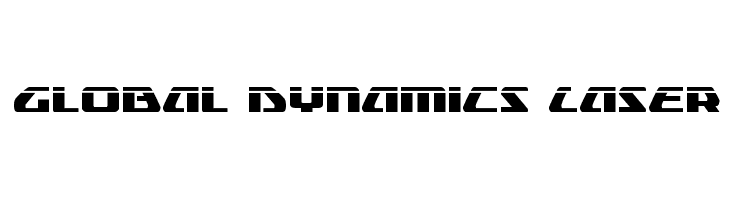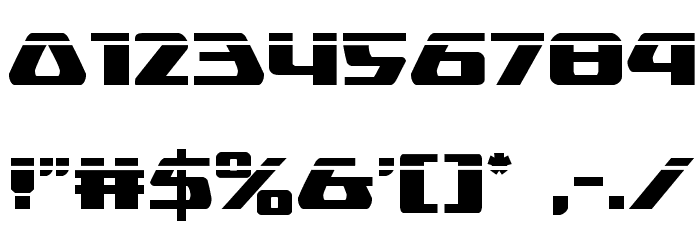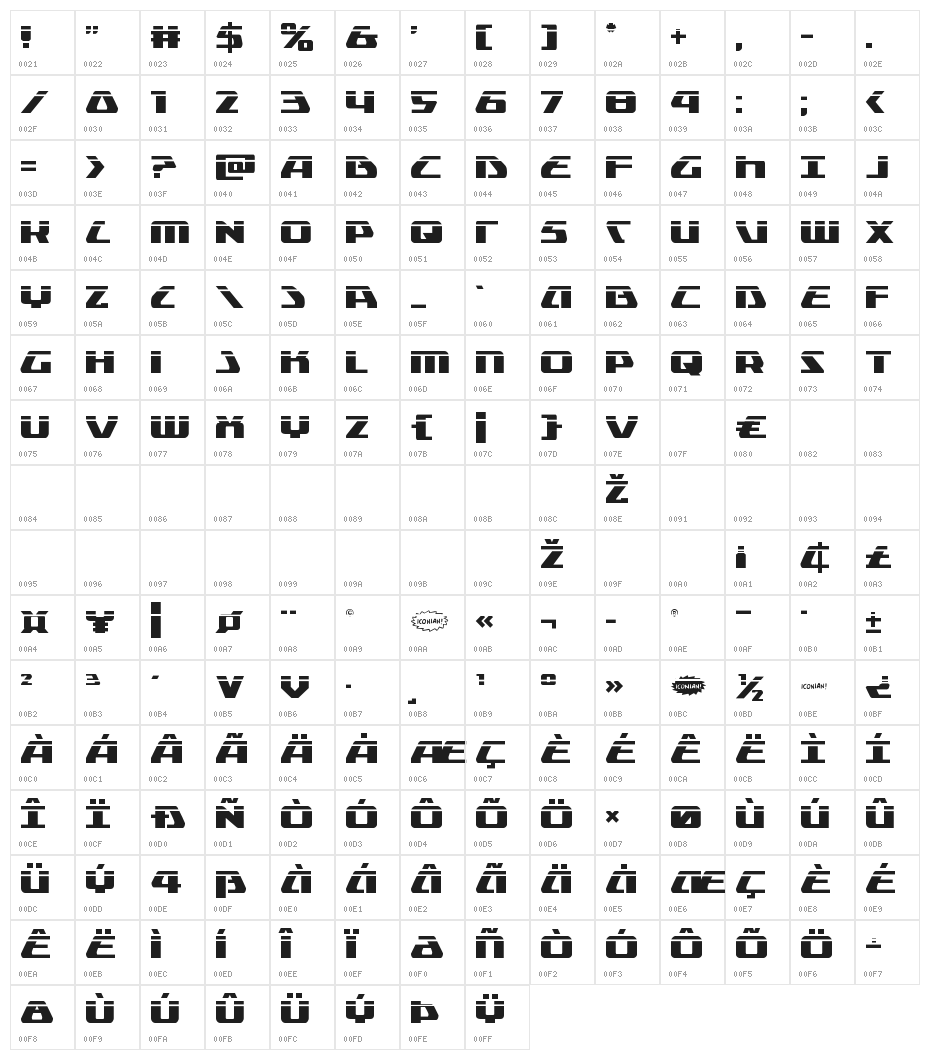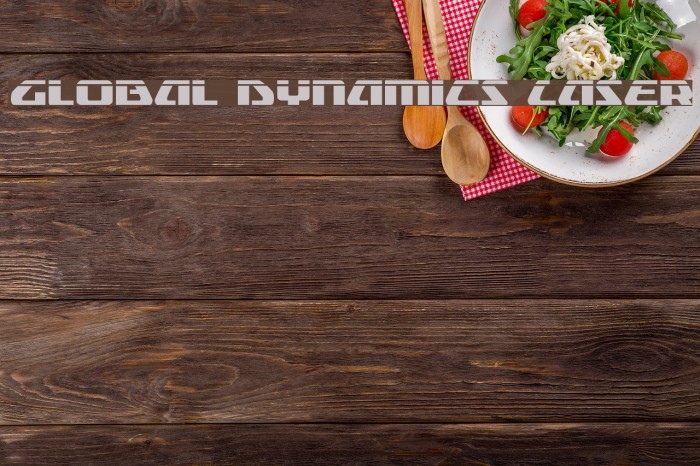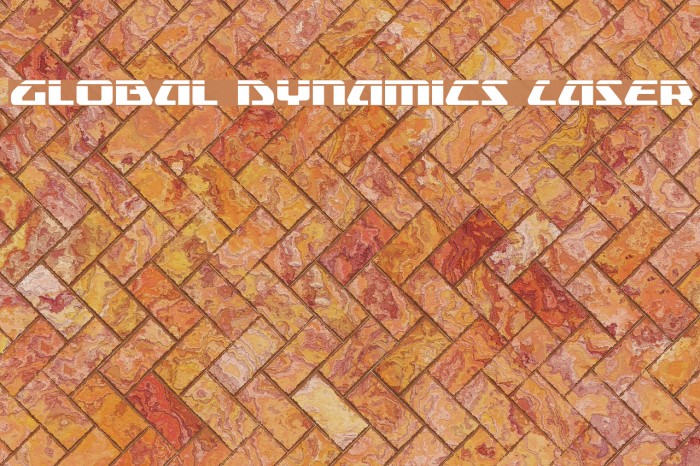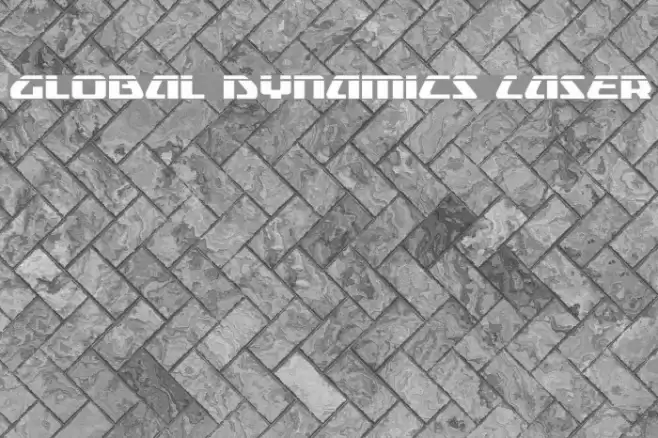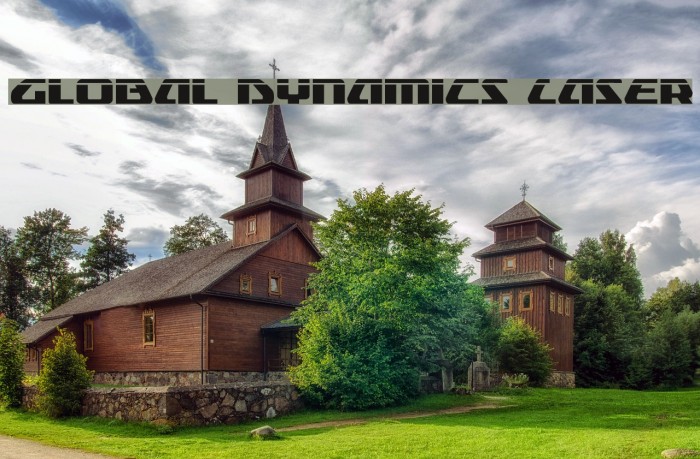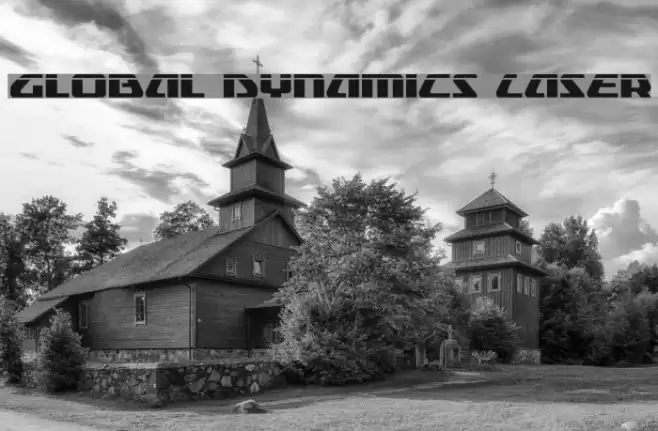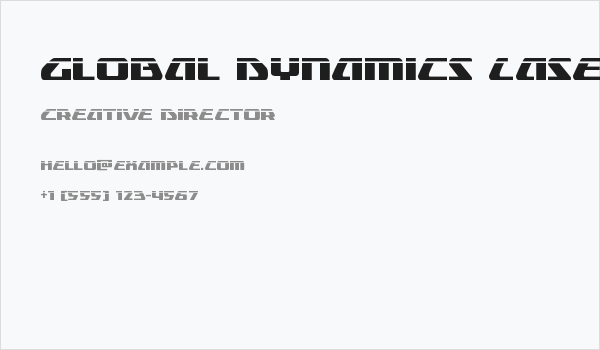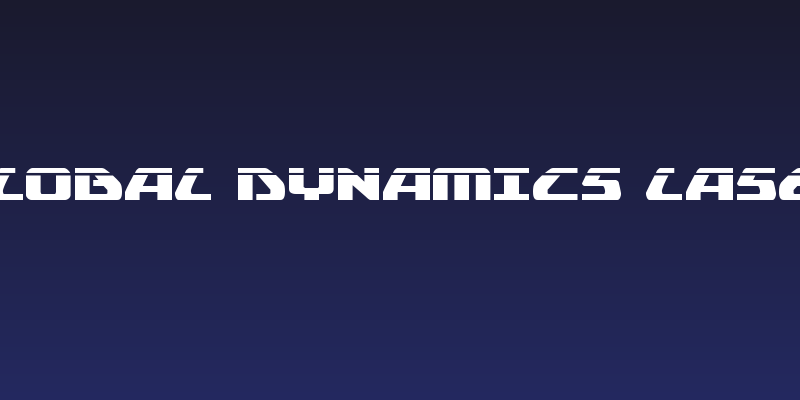
Global Dynamics Laser Font
Global Dynamics Laser Description
This font features a bold, futuristic design with sharp, angular edges and a geometric structure. The characters are constructed with a stencil-like appearance, incorporating breaks and cuts that add a dynamic and industrial feel. The uppercase letters are particularly striking, with a uniform height and width that create a cohesive and powerful visual impact. The numerals and special characters maintain this aesthetic, ensuring consistency across all glyphs. The font's style is reminiscent of digital or technological themes, making it suitable for projects that require a modern and edgy look.
Proposed ProjectsIdeal for technology branding, video game titles, sci-fi movie posters, and modern digital interfaces.